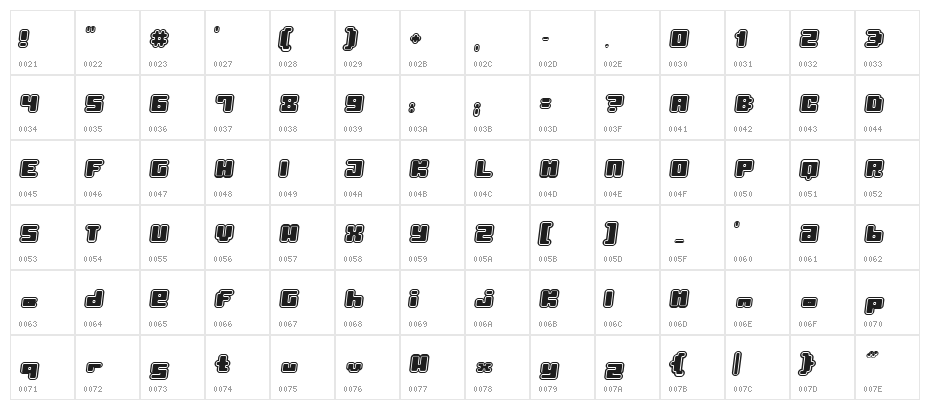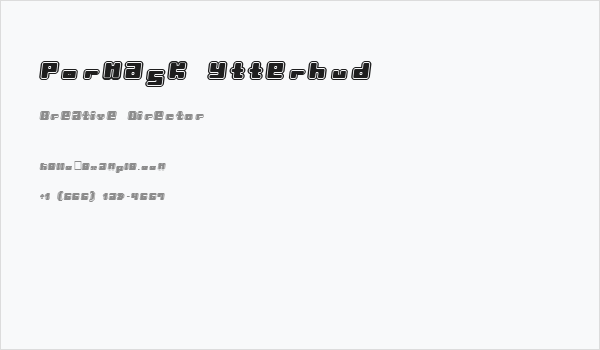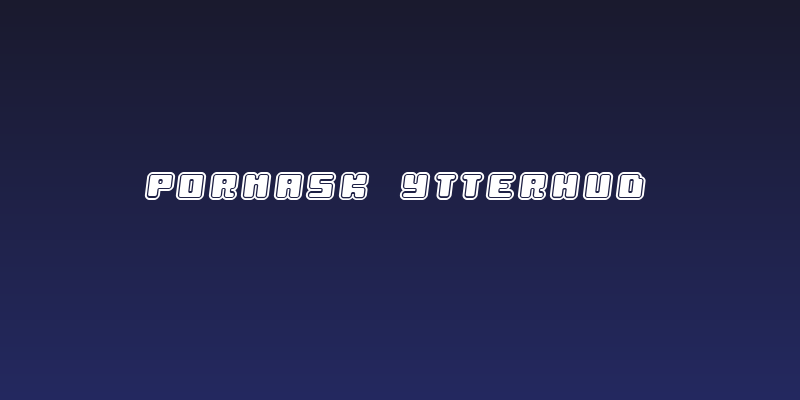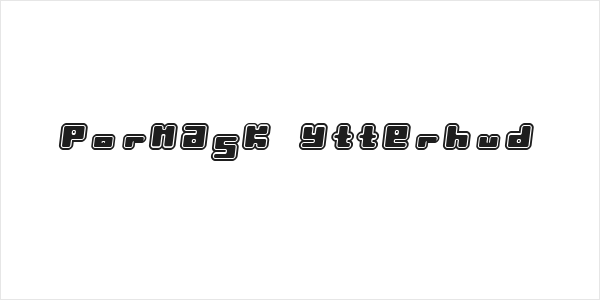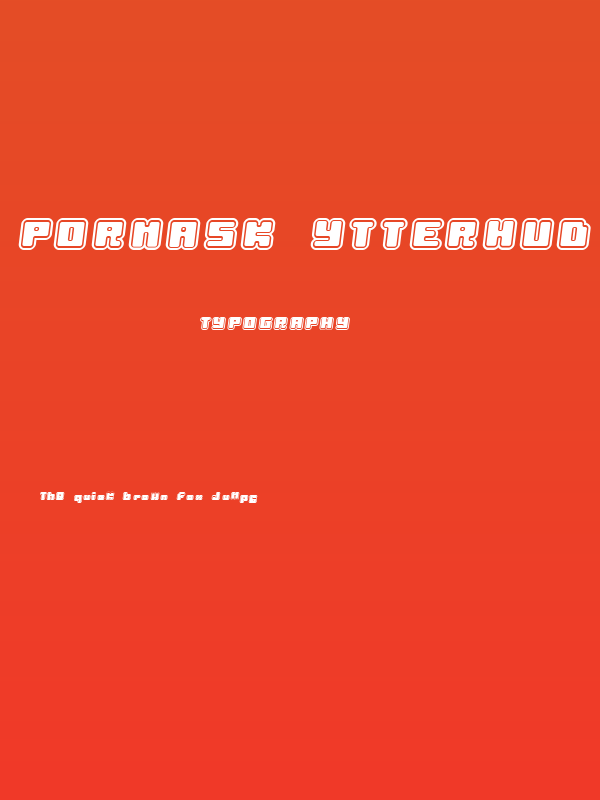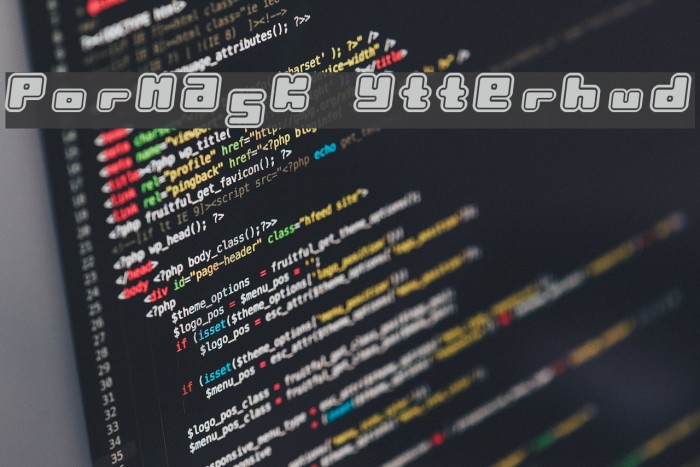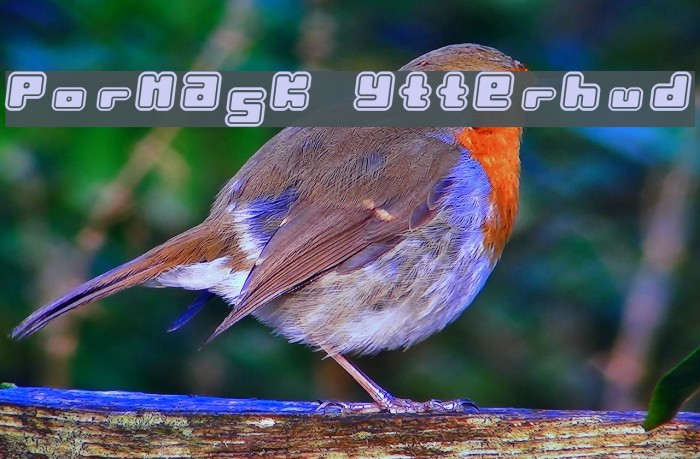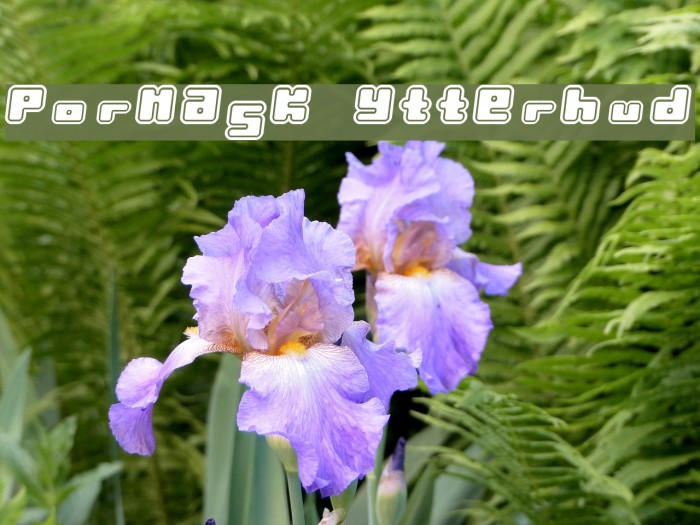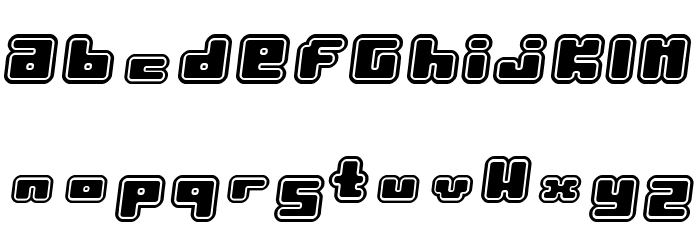
Pormask Ytterhud Font
Pormask Ytterhud Description
This font features a bold, playful design with a distinct outline style that gives each character a three-dimensional appearance. The letters are rounded and chunky, with a consistent thickness that adds to the boldness of the font. The uppercase and lowercase letters maintain a uniform style, with slight variations in height and width to differentiate them. Numbers and special characters follow the same design principles, ensuring a cohesive look across all elements. The font's unique style makes it ideal for projects that require a fun and eye-catching aesthetic.